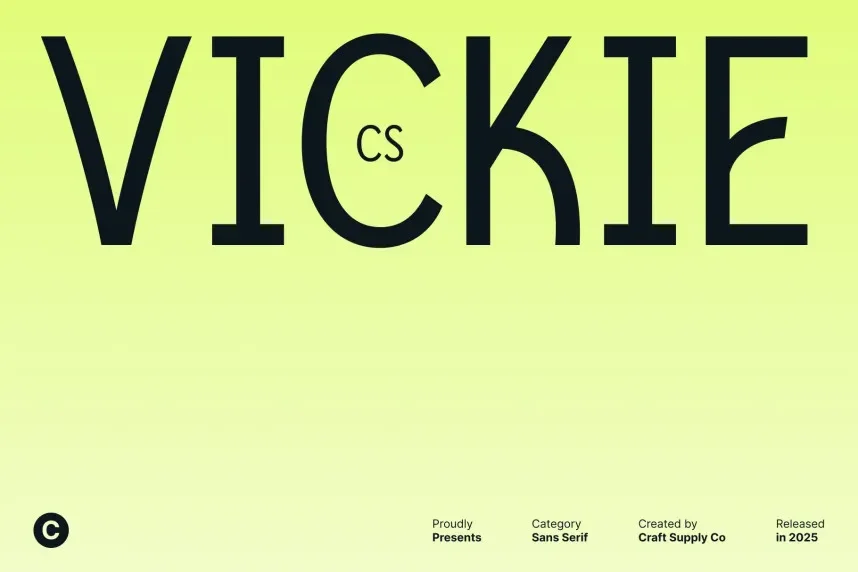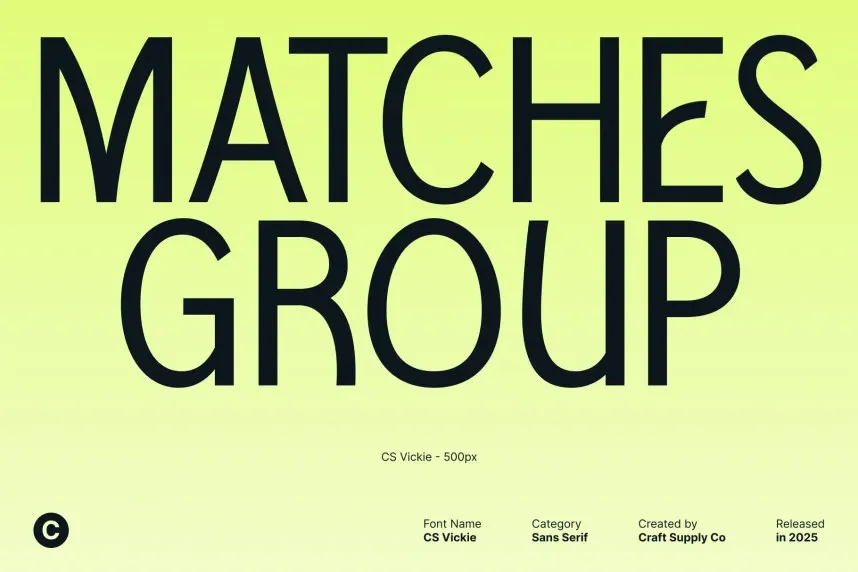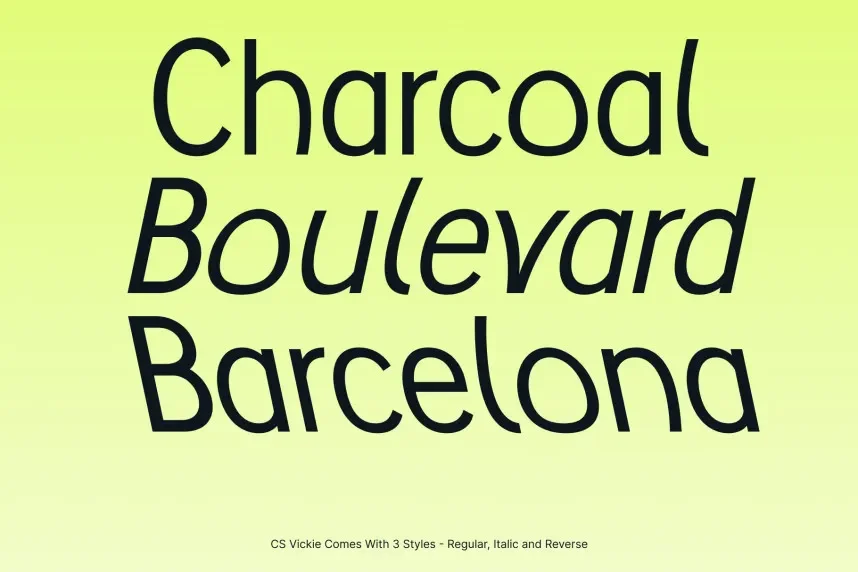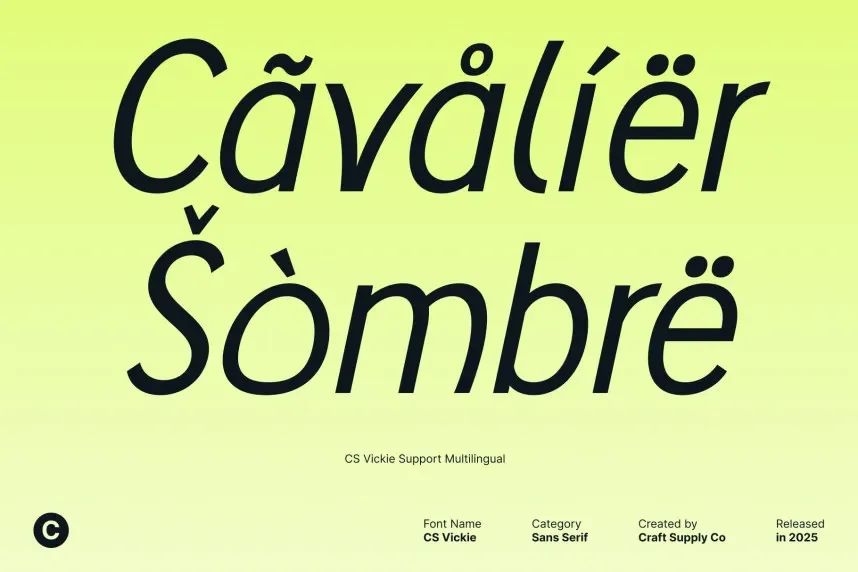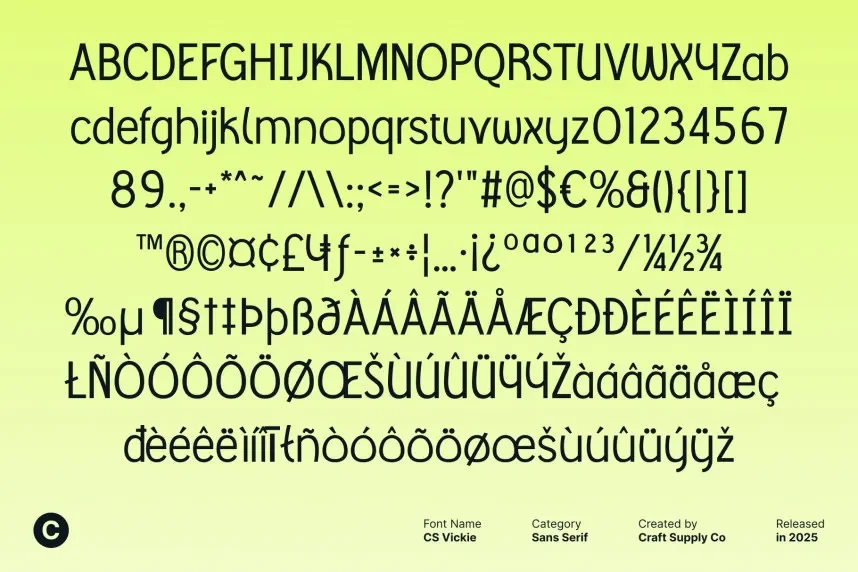
CS Vickie Font addresses the need for a modern, readable font that can be used across a wide range of design applications. It’s a clean sans-serif option perfect for various projects.
CS Vickie is a sans-serif font with geometric letterforms and even stroke contrast. The typeface’s minimalist design makes it suitable for both professional and creative projects that require clarity and structure.